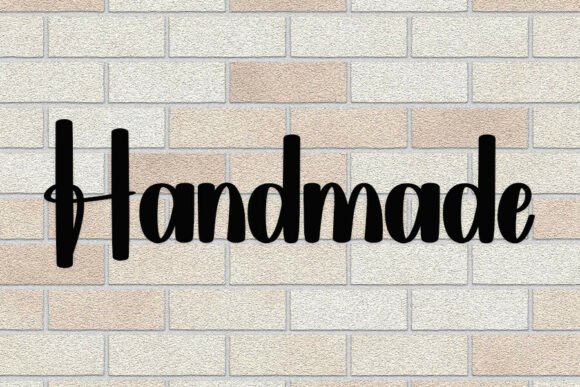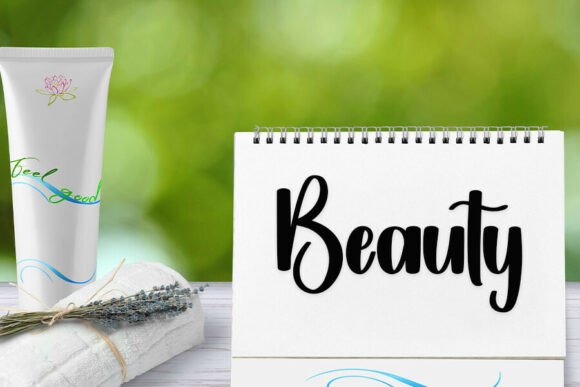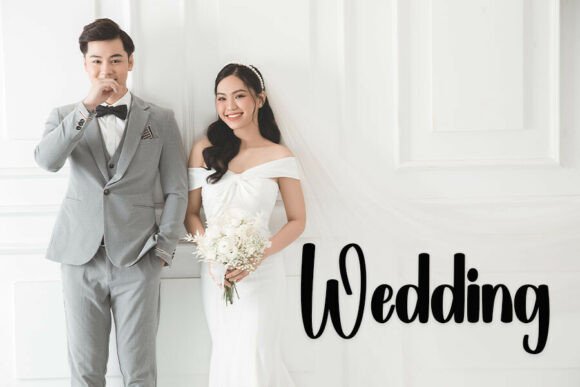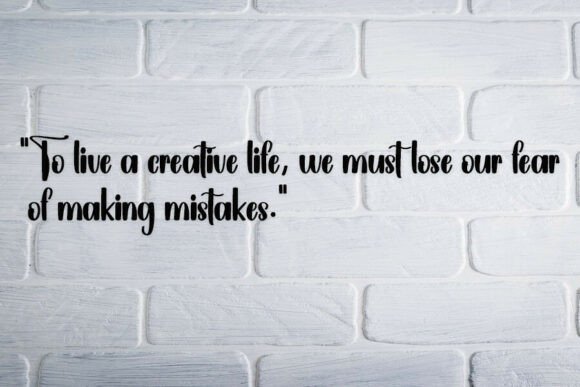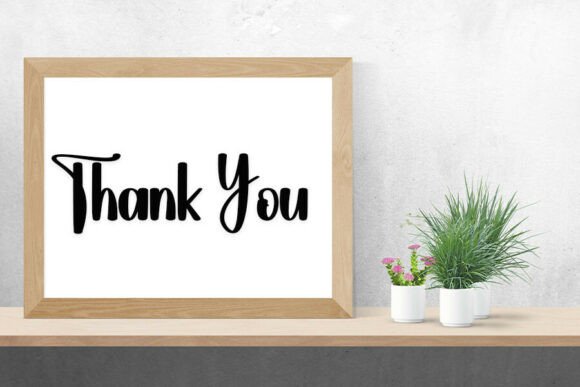
Candy Christmas Font: A Sweet Addition to Your Holiday Designs
It’s that time of the year again – the holiday season is just around the corner, and with it comes the pressure to create stunning designs that capture the spirit of the festivities. I still remember the year I was tasked with designing a Christmas card for a client’s family. I spent hours scrolling through font libraries, searching for the perfect script font that would convey the warmth and playfulness of the season. That’s when I stumbled upon the Candy Christmas font, and it instantly became my go-to for holiday designs.
A Modern Calligraphy Font for the Holidays
The Candy Christmas font is a modern calligraphy font that embodies the playful and cheerful vibe of the holiday season. Its smooth, bouncy lines and charmingly sweet script style are reminiscent of handwritten notes on festive gift tags. This font combines the elegance of traditional script with a contemporary, lighthearted feel, making it perfect for holiday greetings and branding.
What I Love About Candy Christmas
- ✨ Smooth and flowing lines that give it a natural, handwritten feel
- ✅ Highly readable, even in short phrases
- 🎉 Unique and distinctive style that sets it apart from other script fonts
- 💻 Imperfectly perfect – it has just the right amount of quirks to make it feel authentic
While the Candy Christmas font is a stunning addition to any design, there are a few things to keep in mind:
- ⚠️ It can be a bit overused – make sure to balance it with other design elements to avoid overwhelming the viewer
- 🤔 Some characters may not connect as seamlessly as others, but this only adds to its charm
- Experiment with OpenType features like stylistic alternates and glyphs to add more personality to your text
The Story Behind Candy Christmas
The Candy Christmas font was designed by a talented typographer who wanted to capture the magic of the holiday season in a font. Inspired by traditional calligraphy and modern digital design, the font was crafted to be both elegant and playful. The designer aimed to create a font that would make holiday designs feel more personal and special.
| What makes Candy Christmas unique? | The Candy Christmas font features smooth, bouncy lines and a charmingly sweet script style that sets it apart from other script fonts. |